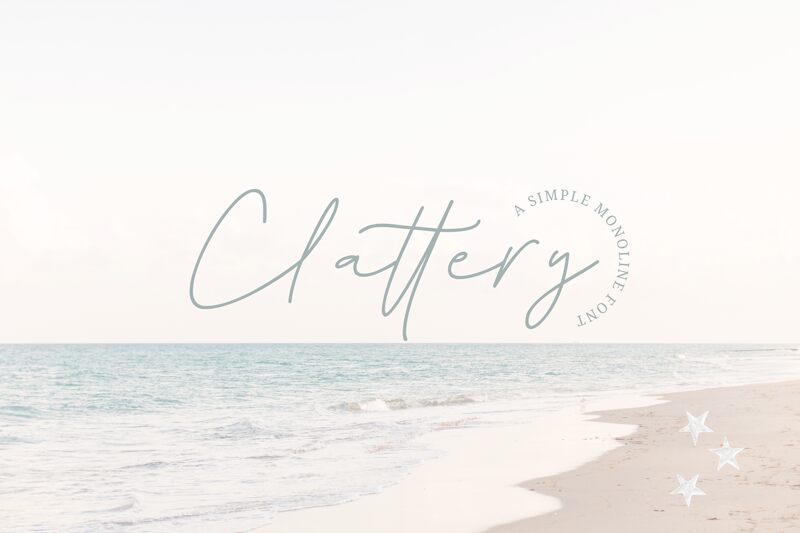
Clattery Regular
Clattery Regular is a part of the Clattery typeface family created by Niskala Huruf. It has a warm handwriting feel to it that is very inviting. The author’s signature may come to mind when you see this font because of its lightness and the way it flows so freely as if their pen never left the page.
It has an organic flow which gives off an air of sophistication and friendliness at the same time; therefore making perfect sense for any project requiring personal input or delicate touch.
Clattery Regular works wonders on logos, branding materials as well as event invites since it brings about that extra something special needed for these types of works. Not many people can resist its charm once they lay their eyes upon it!